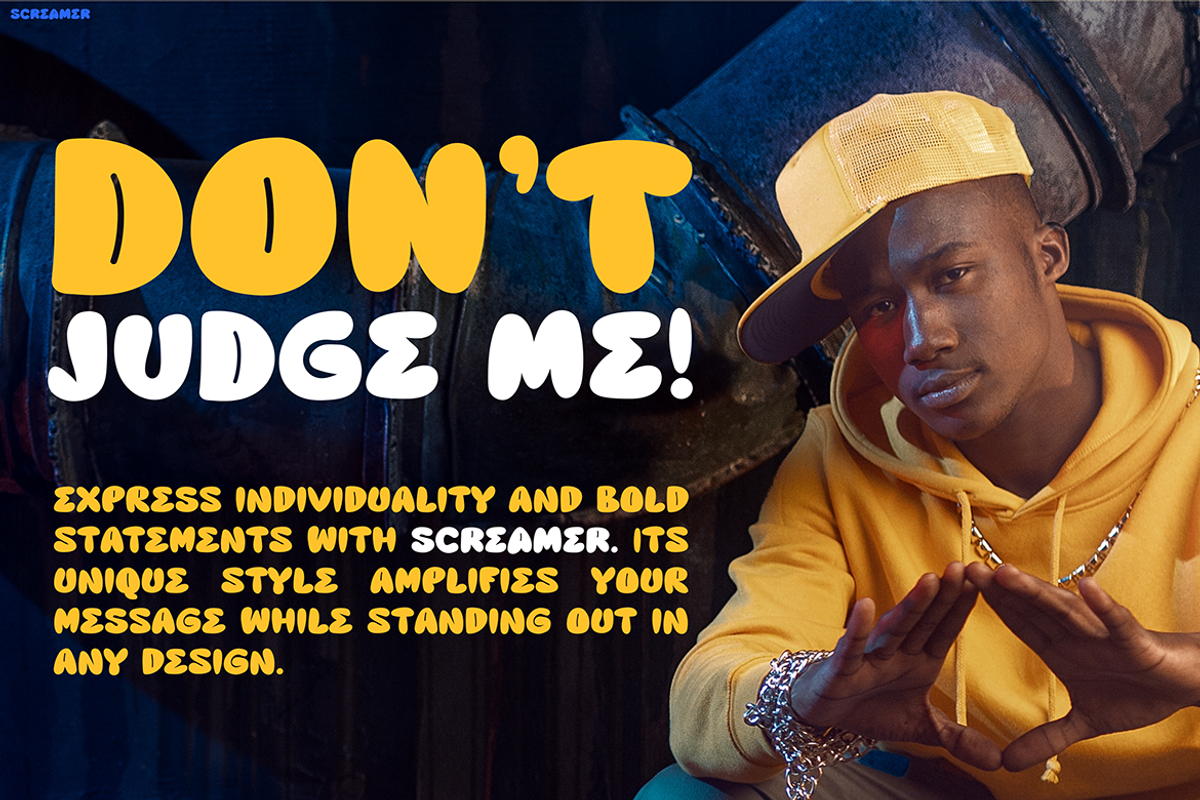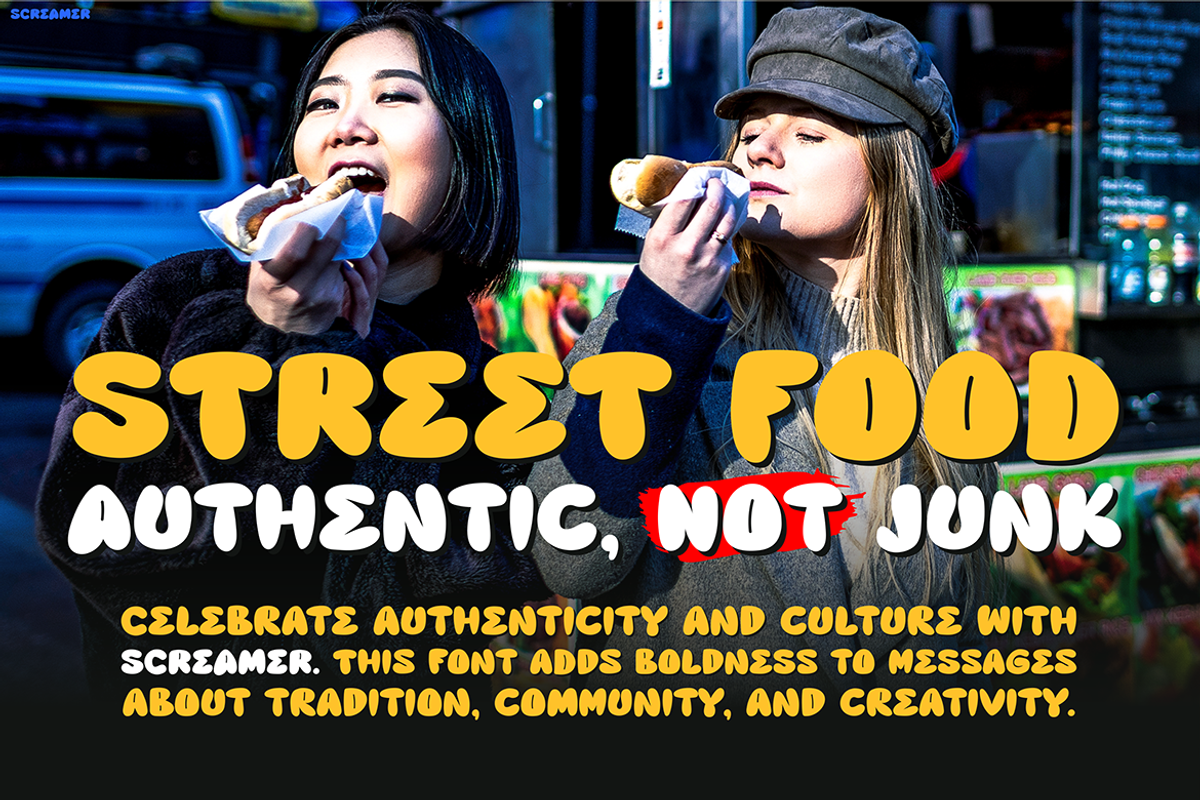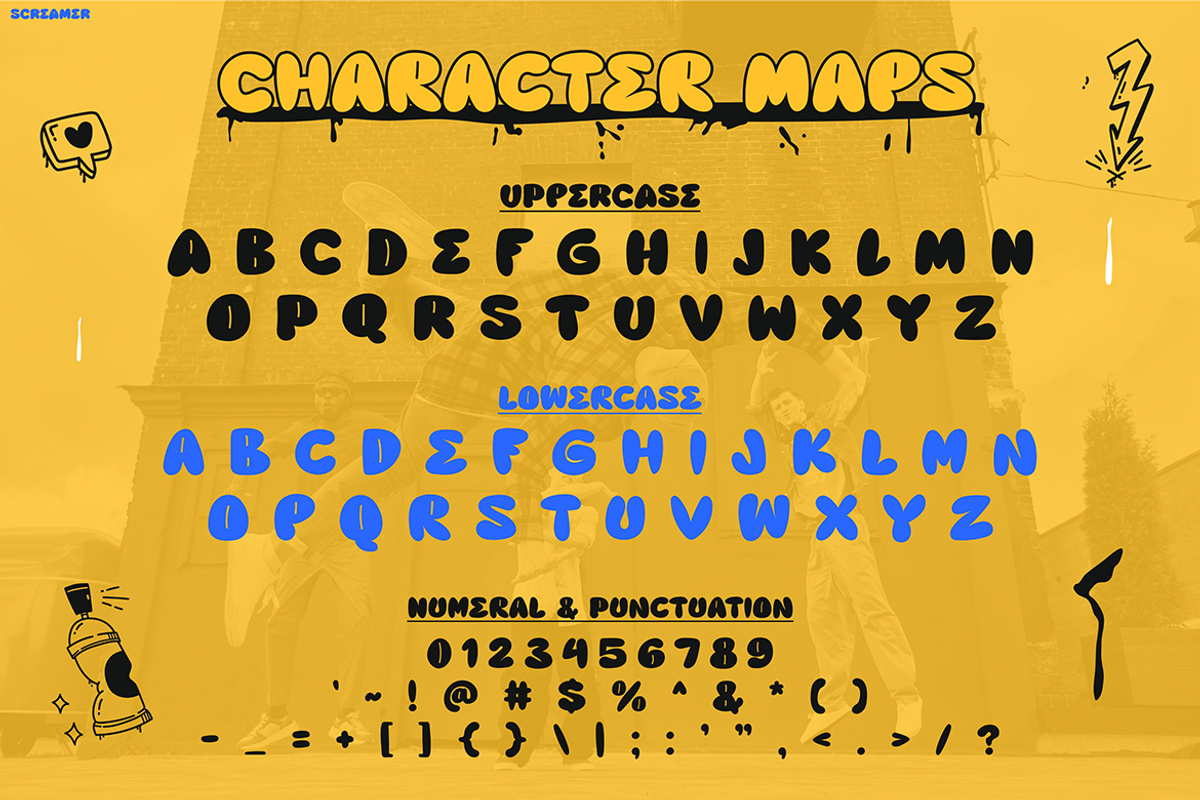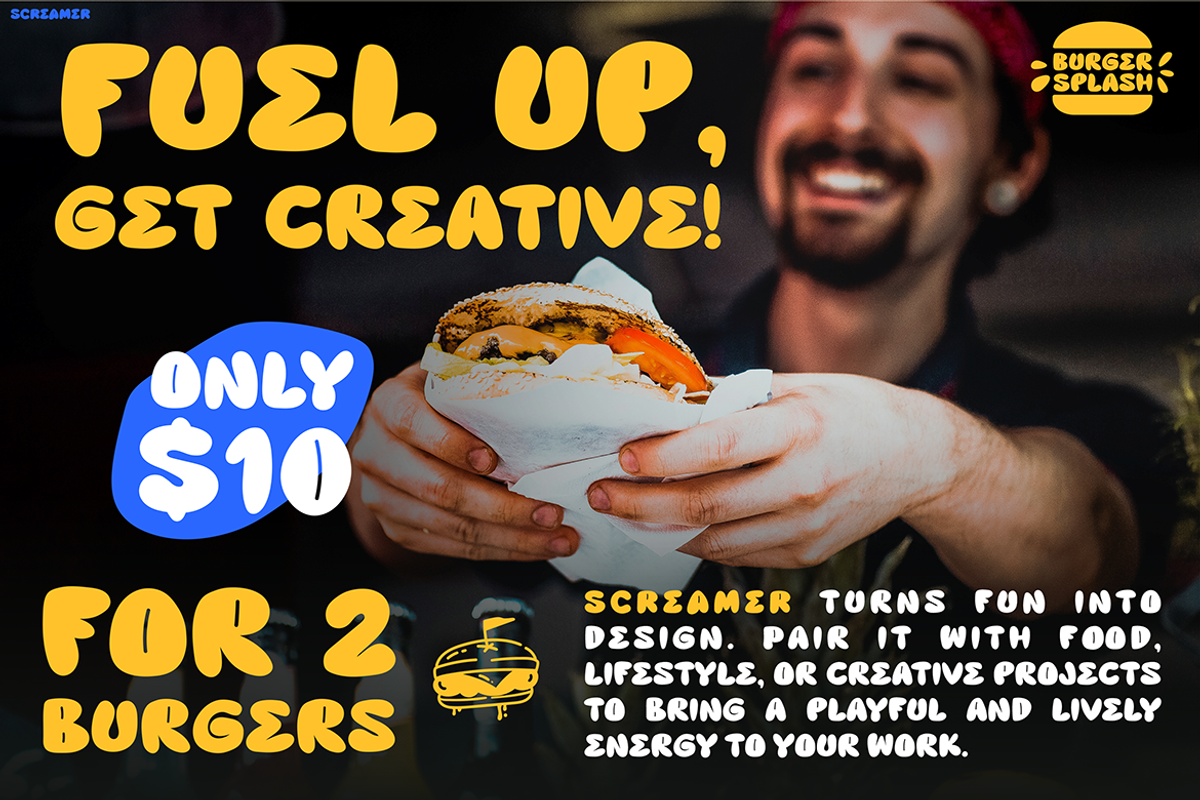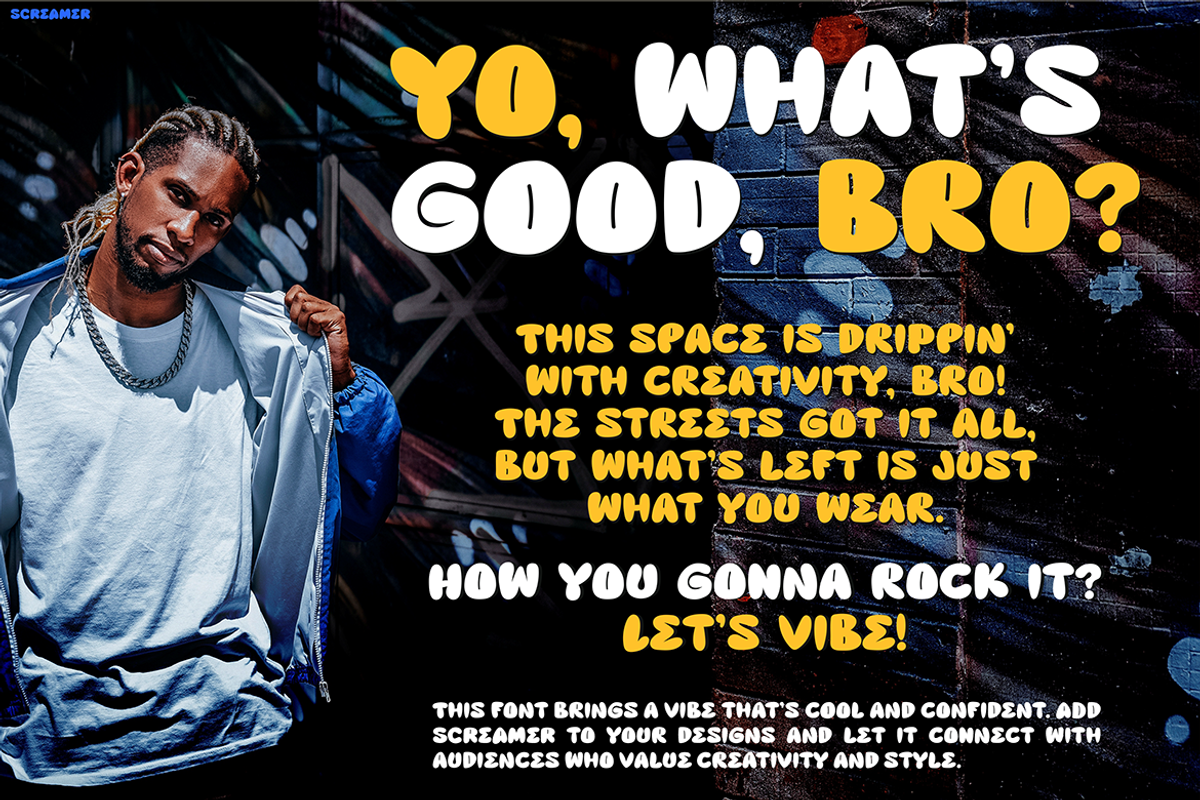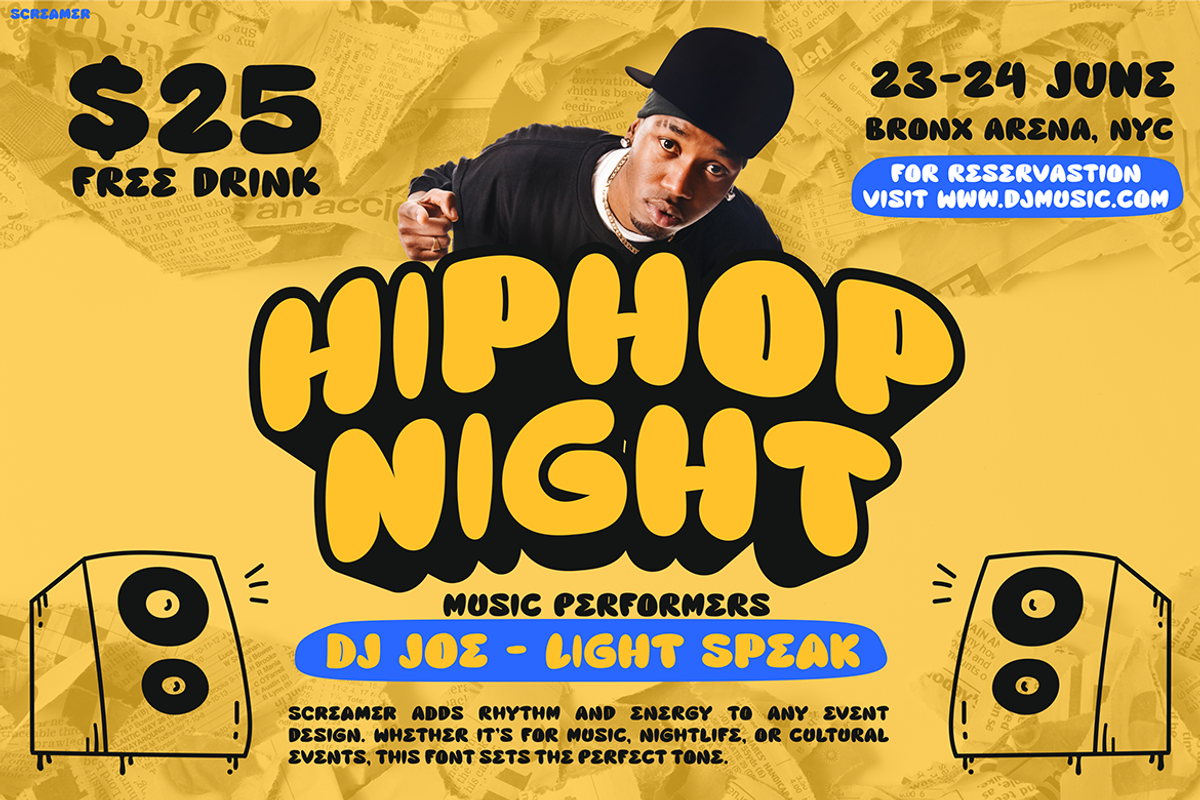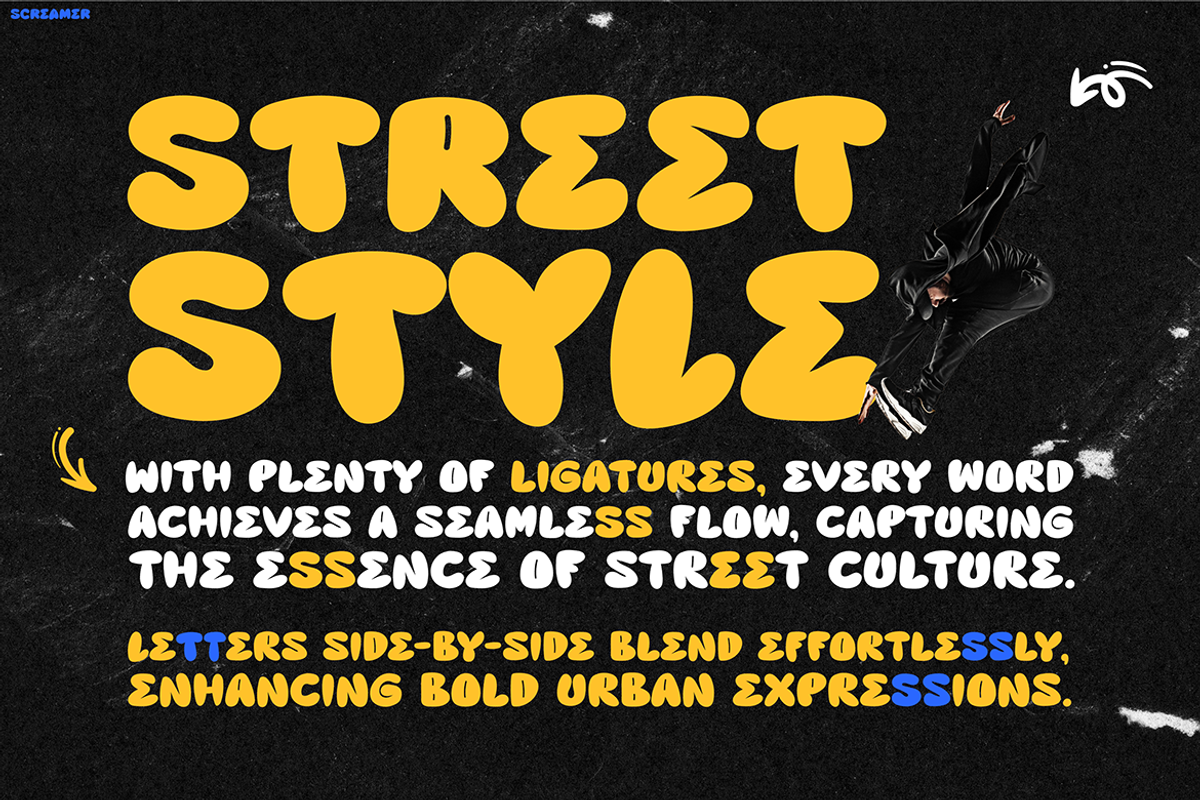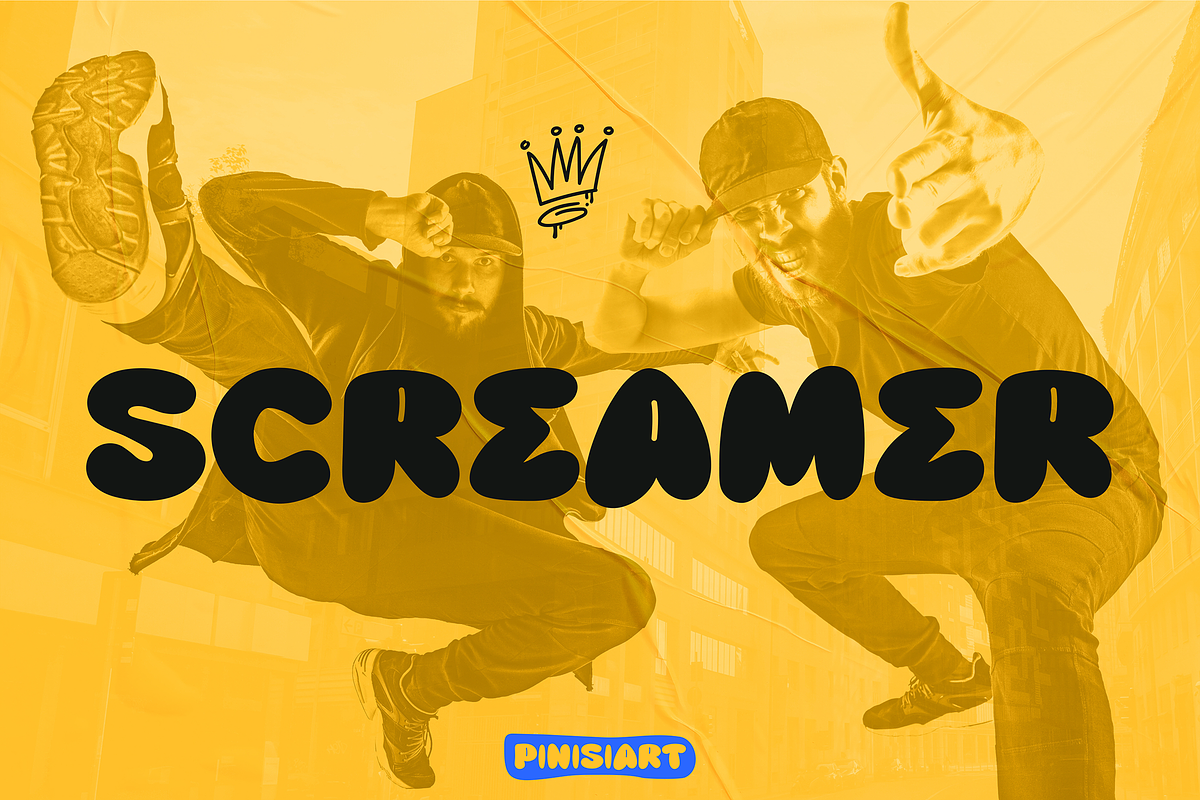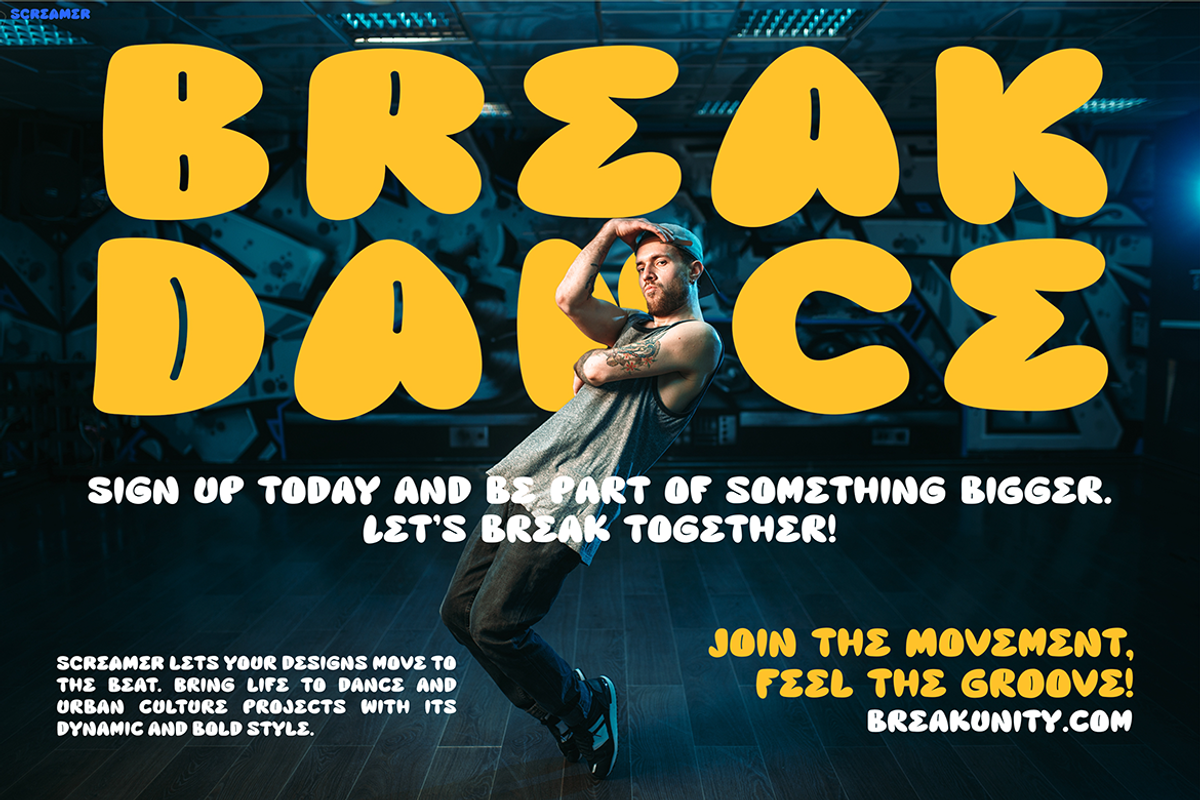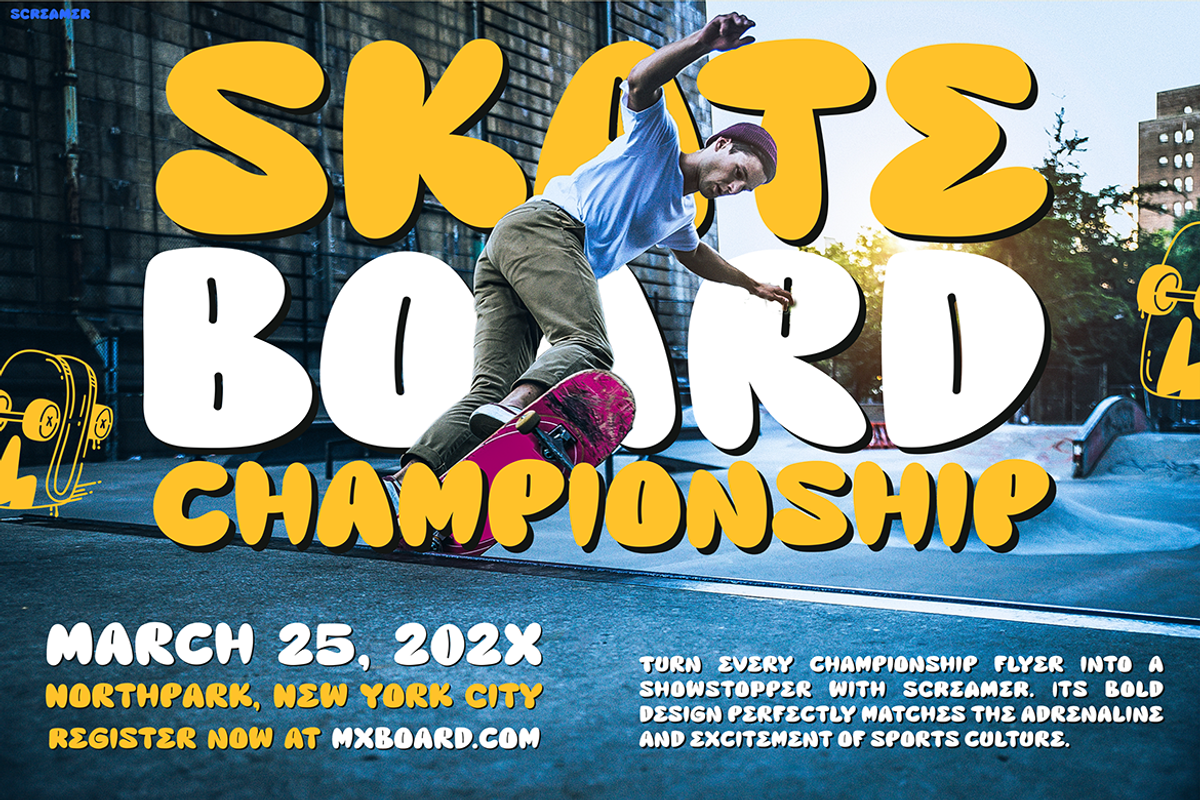
SCREAMER
Bubble Font SCREAMER is a bold and energetic typeface designed to grab attention and convey dynamic movement. With its thick, rounded edges and playful forms, this font exudes a streetwise attitude and youthful spirit. Moreover, its robust letterforms evoke fun, rebellion, and confidence, making it perfect for projects needing a bold statement. The rounded shapes create a soft, approachable feel, while the overall weight and structure maintain authority and impact.
The SCREAMER font captures a blend of retro graffiti vibes and modern urban trends. Therefore, it’s ideal for designs aiming to stand out in noisy, fast-paced environments. The bright and vibrant styling, as depicted in promotional materials, further enhances the font’s versatility. Consequently, this allows it to adapt to various bold, fun, and edgy themes. Whether used for headlines, branding, or artistic displays, SCREAMER brings a sense of movement and individuality to any design.